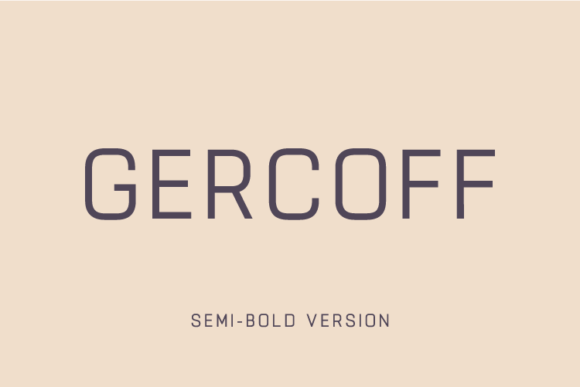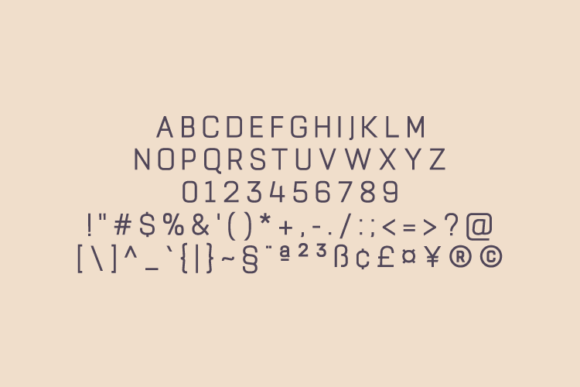
HomeSans Serif FontsGercoff Semi-Bold Font Sans Serif Fonts Gercoff Semi-Bold Font FacebookXPinterestWhatsApp Gercoff Semi-Bold Font 1 of 2 About Gercoff Semi-Bold Font Gercoff is a clean and simple vintage sans serif font with smooth edges. Itβs perfect for vintage logo designs, headers and small amounts of text. DOWNLOAD ON CREATIVE FABRICAThis font is sold and delivered by Creative Fabrica. Font Canyon may earn a commission if you buy through this link. People also explored Angelista Font Ramqina Font Hello Skull Font Belgium Catherine Font The Duck Font Yield Font Roseville Script Font The Winter Font Speedometer 355 0 TagsGercoff Semi-Bold Font Previous articleGercoff Bold FontNext articleGercoff Medium Font LEAVE A REPLY Cancel reply Comment: Please enter your comment! Name:* Please enter your name here Email:* You have entered an incorrect email address! Please enter your email address here Website: Save my name, email, and website in this browser for the next time I comment. Personal Use Free Geuli Font Personal Use Free Read more about this font Genres Personal Use Free Read more about this font The Winter Personal Use Free Read more about this font Boronic Personal Use Free Read more about this font BLOG To increase your work productivity, choose the most readable fonts. In today's fast-paced work environment, where digital communication and information consumption are integral to our daily routines, the choice of fonts can significantly impact... Exploring Font Trends Fonts That Capture the Spirit of New York City Best Fonts for T-Shirt Design β Top 2025 Picks